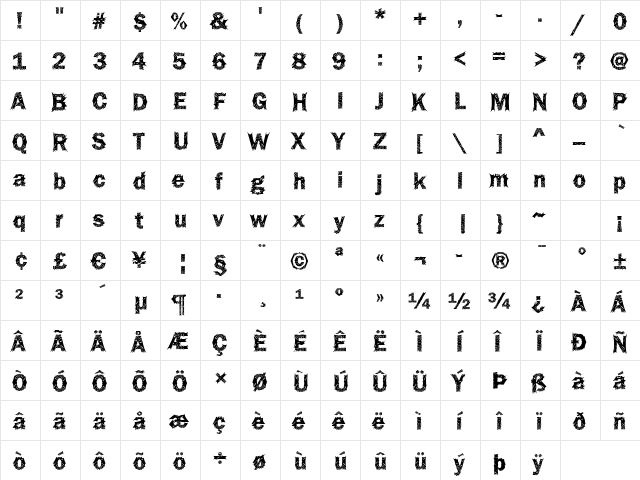
Funky36 Bold
Design Context for Funky36 Typeface
Funky36 trades formality for fun, with bouncy, characterful letterforms that bring warmth and energy to any project.
Font Pairing: Pairs well with a rounded or humanist sans for body copy, maintaining the friendly tone without relying on Funky36 to carry extended reading.
Pro Tip: Avoid using Funky36 for long passages of text — it works best for headlines, labels, and short calls to action.